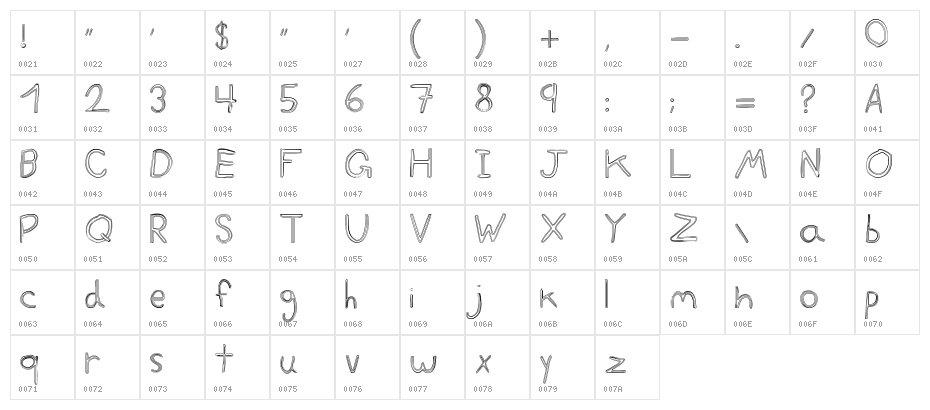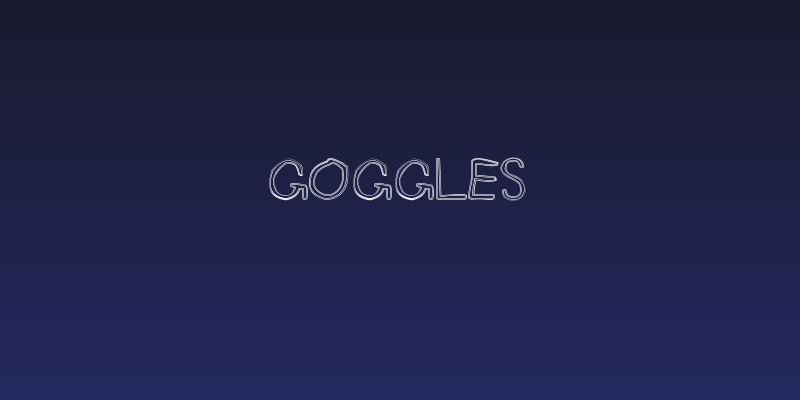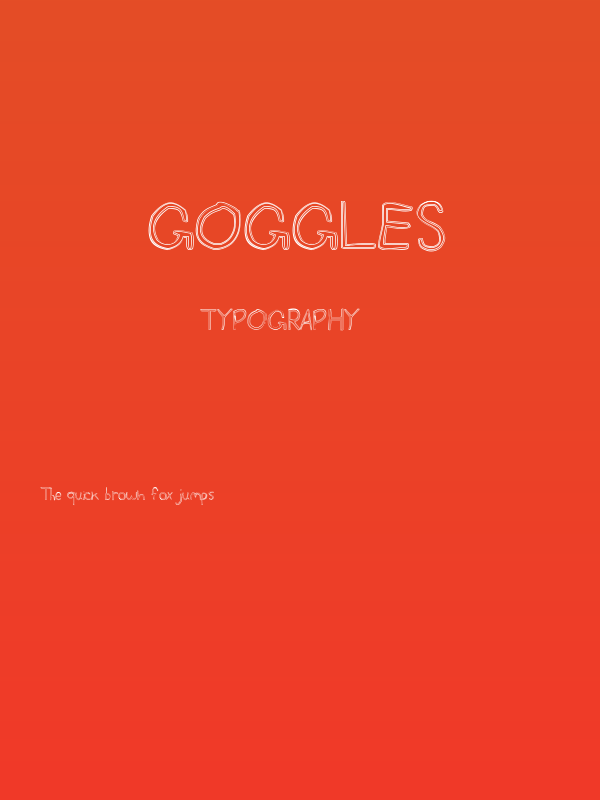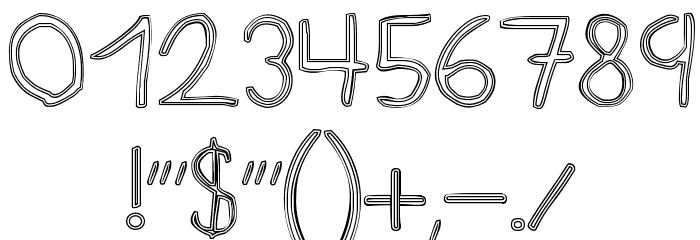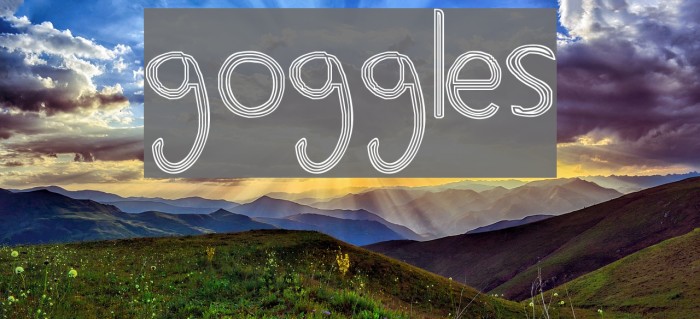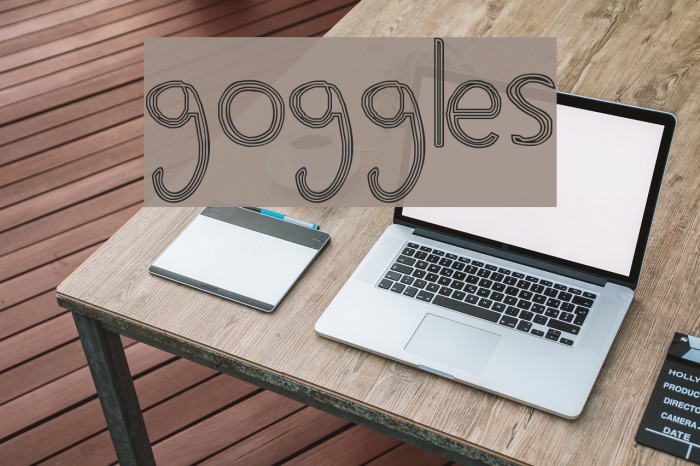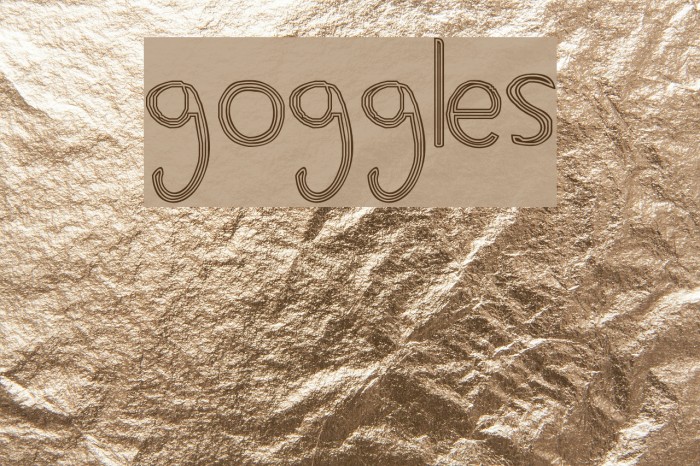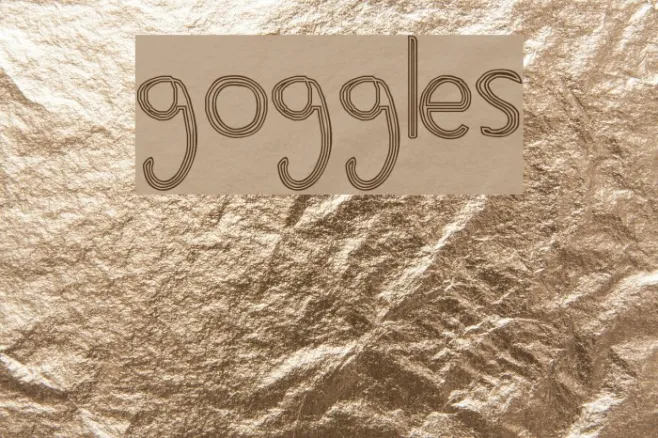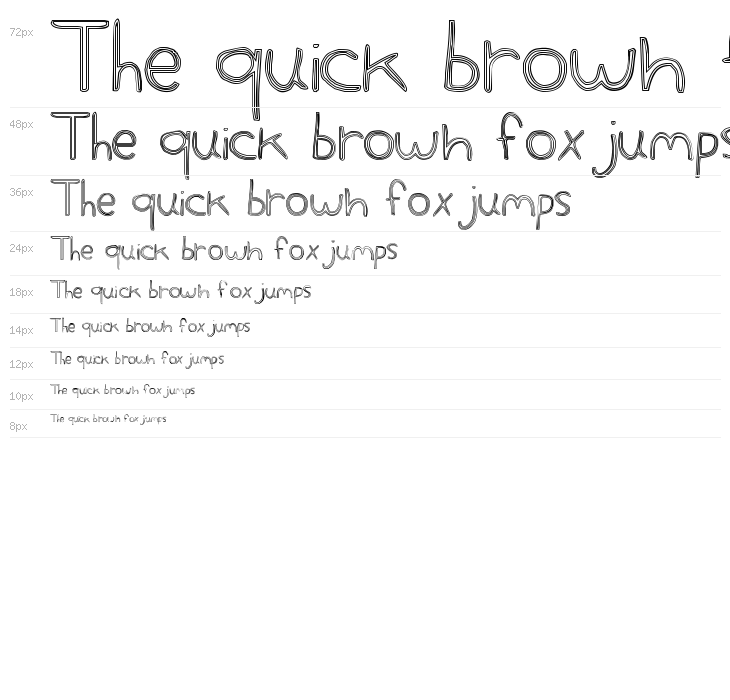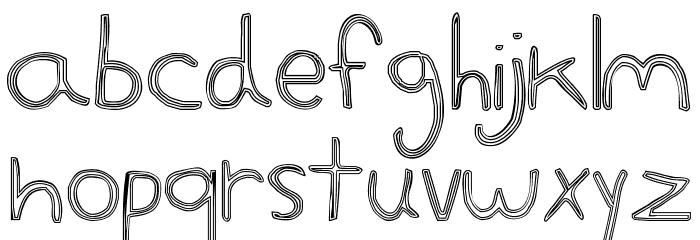
goggles Font
goggles Description
This playful and whimsical font features a double-line style that gives it a unique, hand-drawn appearance. Each character is outlined with a consistent thickness, creating a sense of depth and dimension. The uppercase and lowercase letters maintain a casual, informal look, with slightly irregular shapes that add to its charm. The numerals and special characters follow the same design principles, ensuring a cohesive appearance across all elements. This font is ideal for projects that require a fun and approachable aesthetic, such as children's books, playful branding, or creative invitations.
| Overall Style | Whimsical, Playful |
| Proposed Projects | Ideal for children's books, playful branding, creative invitations, and casual designs. |